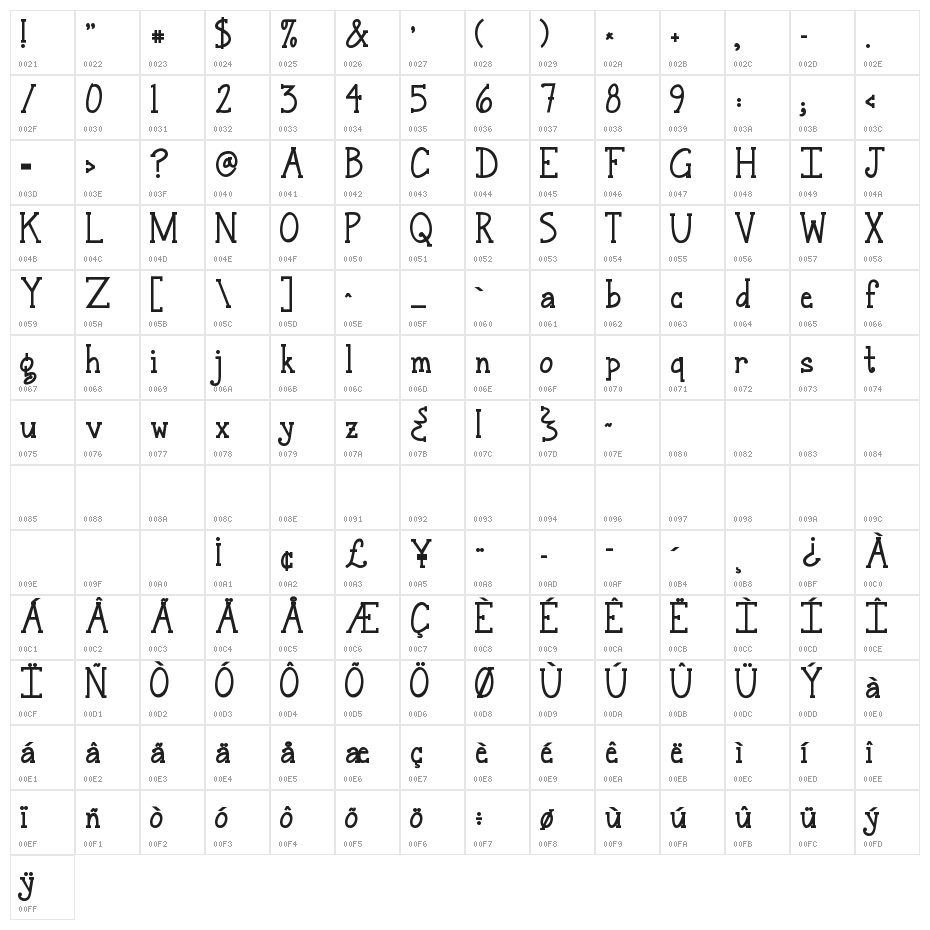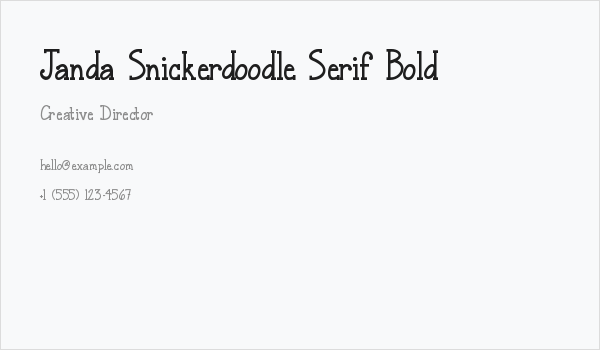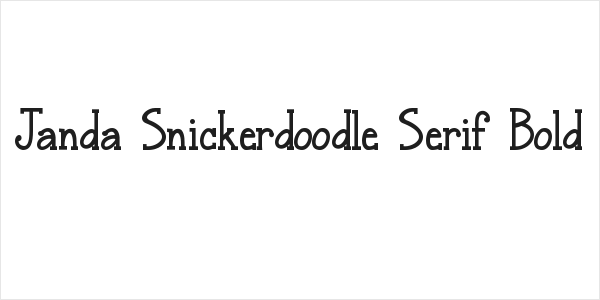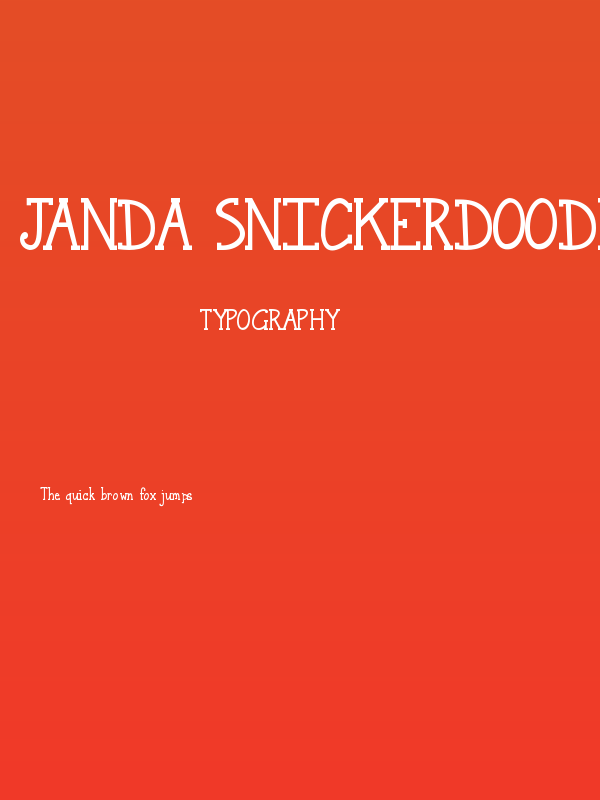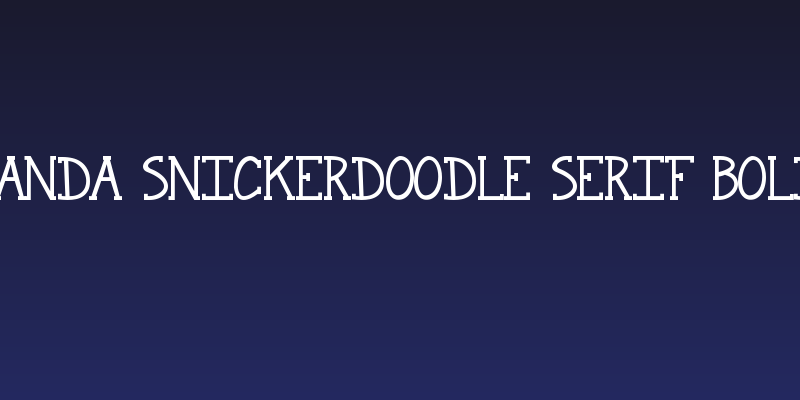
Janda Snickerdoodle Serif Bold Font
Janda Snickerdoodle Serif Bold Description
This font features a playful and whimsical design, combining elements of both serif and decorative styles. The uppercase letters are bold and structured, with distinct serifs that add a touch of elegance. The lowercase letters maintain a consistent style, with rounded edges and a slightly exaggerated form that enhances readability while adding a fun, informal vibe. The numerals are clear and easy to distinguish, matching the overall playful aesthetic. Special characters are well-integrated, maintaining the font's unique style. This font is perfect for projects that require a blend of formality and creativity.
| Proposed Projects | Ideal for children's books, playful branding, creative invitations, and whimsical posters. |